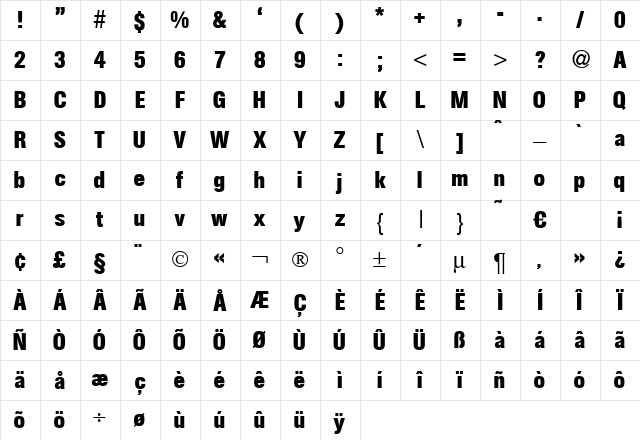
AgentConDB Bold
AgentConDB Family
Design Context for AgentConDB
AgentConDB is a composed and adaptable typeface that performs quietly and consistently across a wide range of design contexts. Its bold stroke weight gives it real presence on the page. Its narrow stance lets it pack a punch even in space-constrained designs.